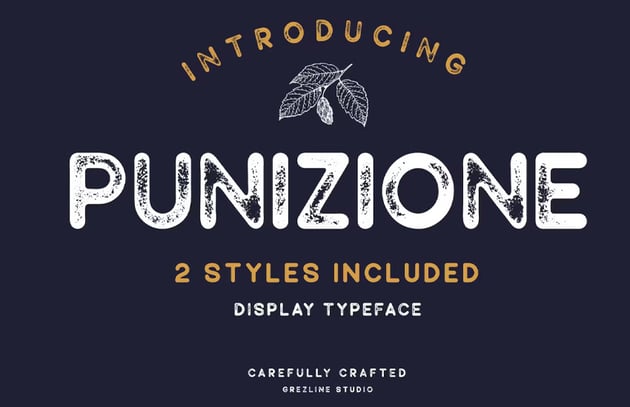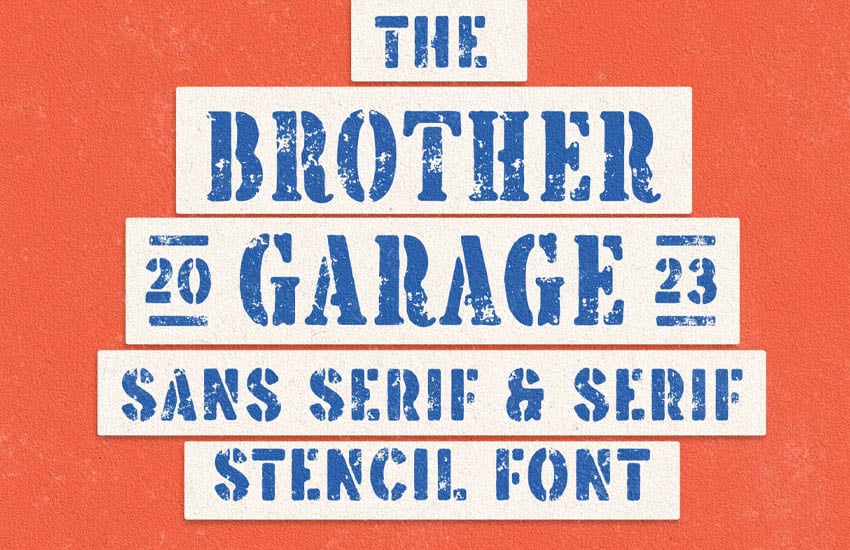
Fonts That Look Like a Stamp
Is there a font that looks like a stamp? There are plenty, and a rubber stamp font can add really fun texture to your designs. You have a lot of choice when choosing a font that looks like a stamp. Go for something bold, rustic, or even stencil inspired. Find the perfect font that looks like a rubber stamp in this list.
15 Stamp Fonts to Download Now
1. Duarose Rough Stamp Font (OTF, TTF)
If you're looking for a font that looks like a rubber stamp but you also want something ornate, give this font a look. It has a really memorable vintage vibe, and that stamp texture really helps push the aesthetic further. It also includes alternates that you can use to create unique design solutions.
2. Stamp Mark Font (OTF)
This decorative stamp font is an amazing choice for commanding attention. The texture gives it a worn look. Try adding some spatters of ink to push the stamp look even further. This one could also work well in other colors—black would be a great choice for good old-fashioned ink.
3. Enternal Vintage Stamp Font (OTF, TTF, WOFF)
This vintage stamp typeface is beautifully designed with so many different swashes you can use in your type designs. It also includes web fonts for use in digital environments. Try pairing this font with other rustic elements or stamp-like illustrations.
4. Rough Rider Stamp Font (OTF)
Isn't this stamp font stylish? This is a great example of how you could effectively use a font that looks like a stamp. Try using it as a cut-out on a high-contrast shape or even a texture. Using a stamp font on something like cardboard or even a wood texture could work very nicely.
5. Kionsa Condensed Stamp Font (OTF, TTF, WOFF)
Here's a bold, condensed font that looks like a rubber stamp. Make sure to keep this one large so you can see all of these beautiful, textured details. High contrast works really well for this one too—try the reverse, as well, like blank ink on white.
6. Kleader Textured Stamp Fonts (OTF, TTF, WOFF)
There's a lot of interesting texture in this font that looks like a rubber stamp. Notice how well it works on textured paper. Don't hesitate to try it on other paper textures too—like watercolor paper, newsprint, or other paper textures. You can find thousands of paper textures on Envato Elements.
7. Gutenberg Bold Sans-Serif Stamp Font (OTF, TTF)
If you need a bold, stand-out font and you also need that stamp font texture, this font could be an awesome choice. There's so much beautiful texture here to admire, and it could work particularly well on a poster. Since we have some transparency here, imagine this font overlaid on rustic imagery.
8. Summer Stamp Fonts Collection (OTF, TTF)
Feeling summer vibes? A font that looks like a rubber stamp can work in this aesthetic too. We've got some vintage summer vibes going on, and it's such a fun look. Imagine this on a vintage tourism postcard or a poster design to advertise a summer event. Try pairing it with other stamped imagery too.
9. Rustic Stamp Fonts (OTF, TTF)
There's so much texture in this font that looks like a stamp. It has different vintage vibes, like something out of the 60s. Stack the type, or maybe try something like a vintage letterpress look. This type design is really creative, and there are tons of exciting things you could try with it.
10. Bardon Stamp Font Family (OTF, TTF, WOFF)
You get a lot of content in this amazing font download. You don't just get a stamp font. You also get some interesting companion versions—a clean style, a round style, an outline, a rough version, and a font that looks like a stamp! Try using them together to create an innovative design solution.
11. Imagine Bold Stamp Font (OTF, TTF, WOFF)
Isn't this serif font beautifully designed? The chunky serifs have a slight curve to them, and we get so much lovely stamp texture in every letter. This is another amazing font design that comes in multiple styles: regular, rough, stamp, and rough stamp. You get all those options with one font download.
12. Ribons Textured Stamp Font (OTF, TTF, WOFF)
Here's a different take on a font that looks like a rubber stamp. It's got a rounded look, and this is one that could look great in different colors. Imagine erratically placing the letters and trying them out in a variety of colors. That could work for a classroom or could even have an association with paint.
13. Hoarse Vintage Stamp Font (OTF, TTF)
If you love the vintage stamp look, you're going to love this awesome font family. You even get illustrations included with this font download. You get a serif and a script—it's the perfect all-in-one download to get started with a rustic, stamped look. Give this font pack a try today.